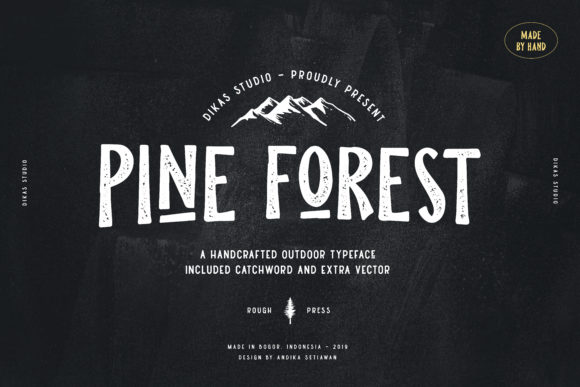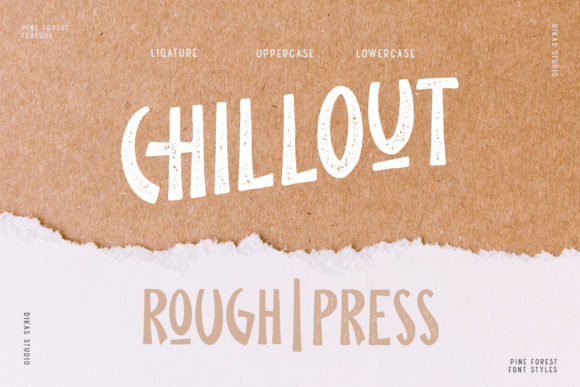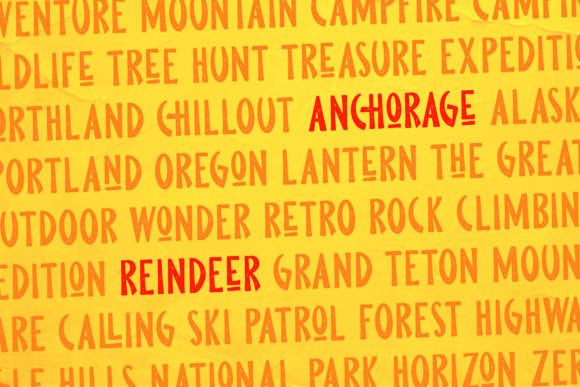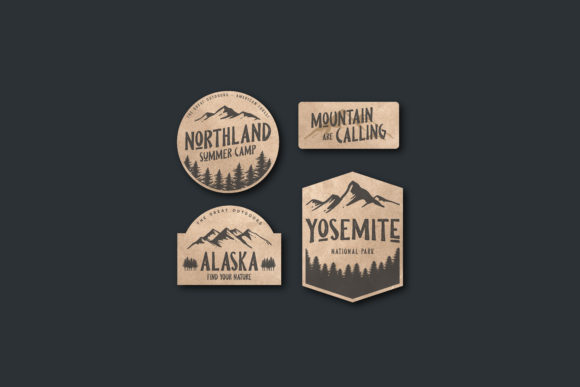
Pine Forest Font: Bold & Rustic Display Font for Logo Design
About the Pine Forest Font
Experience the unique personality of Pine Forest Font, a font designed for impact. Inspired by the great outdoors, Pine Forest is a daring and bold sans serif font. Use it to add an adventurous feel to any creative project!
Pine Forest excels in headlines, logos, and short, impactful text for branding materials and posters. Its strong forms command attention, making it ideal for projects needing a bold visual presence. Avoid using it for body text or lengthy paragraphs; its weight can become overwhelming and hinder readability in extended use.
The font’s adventurous spirit pairs well with clean sans-serif fonts like Helvetica Neue for a balanced contrast, or a more playful script like Allura for a touch of whimsy. For a more serious application, consider pairing it with a classic serif like Garamond.
Pine Forest projects a bold, adventurous, and slightly rebellious personality, perfect for brands focused on outdoor activities, travel, or anything requiring a powerful visual statement.
Pine Forest Font Usage Examples
Pine Forest Font Example